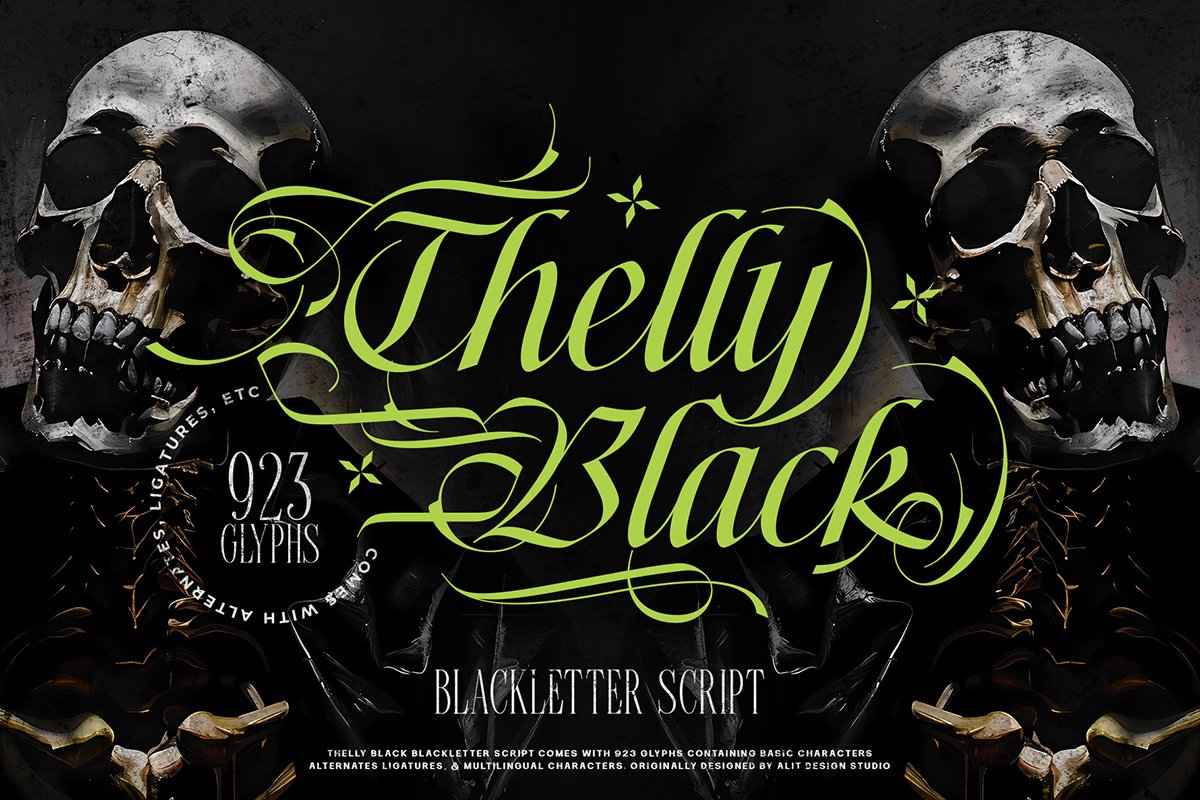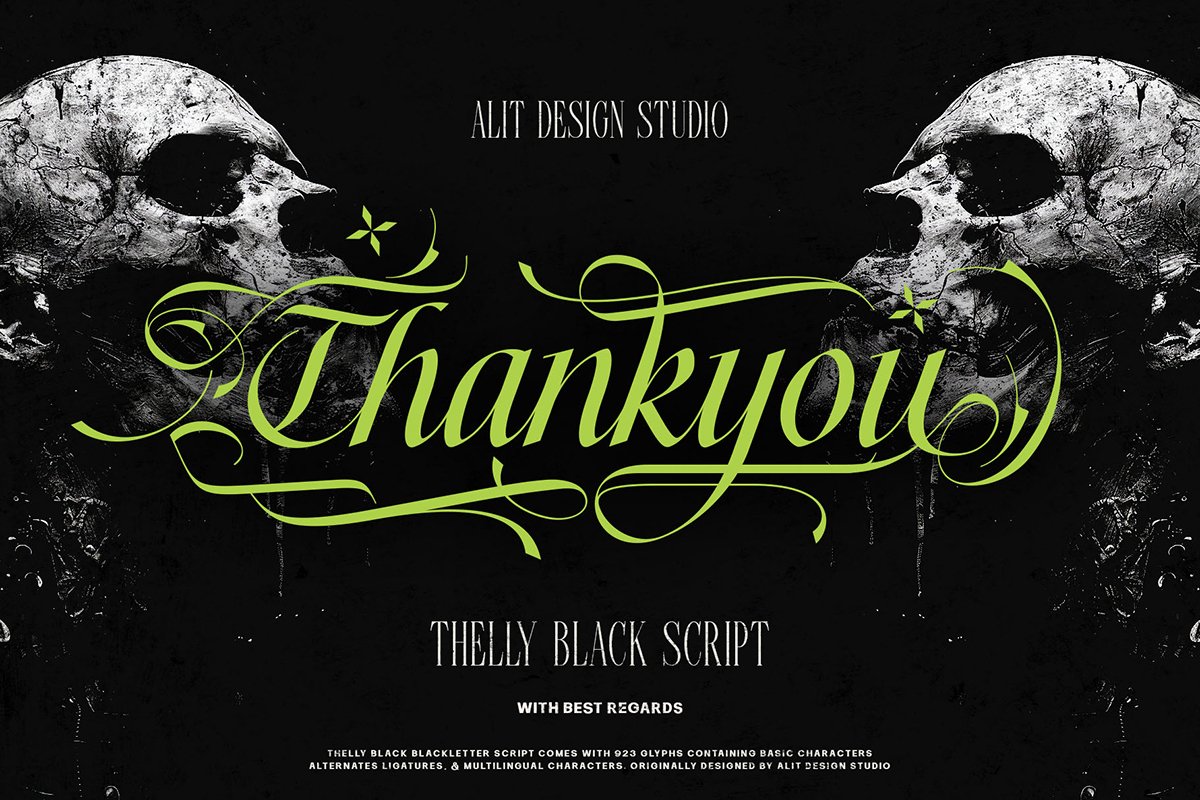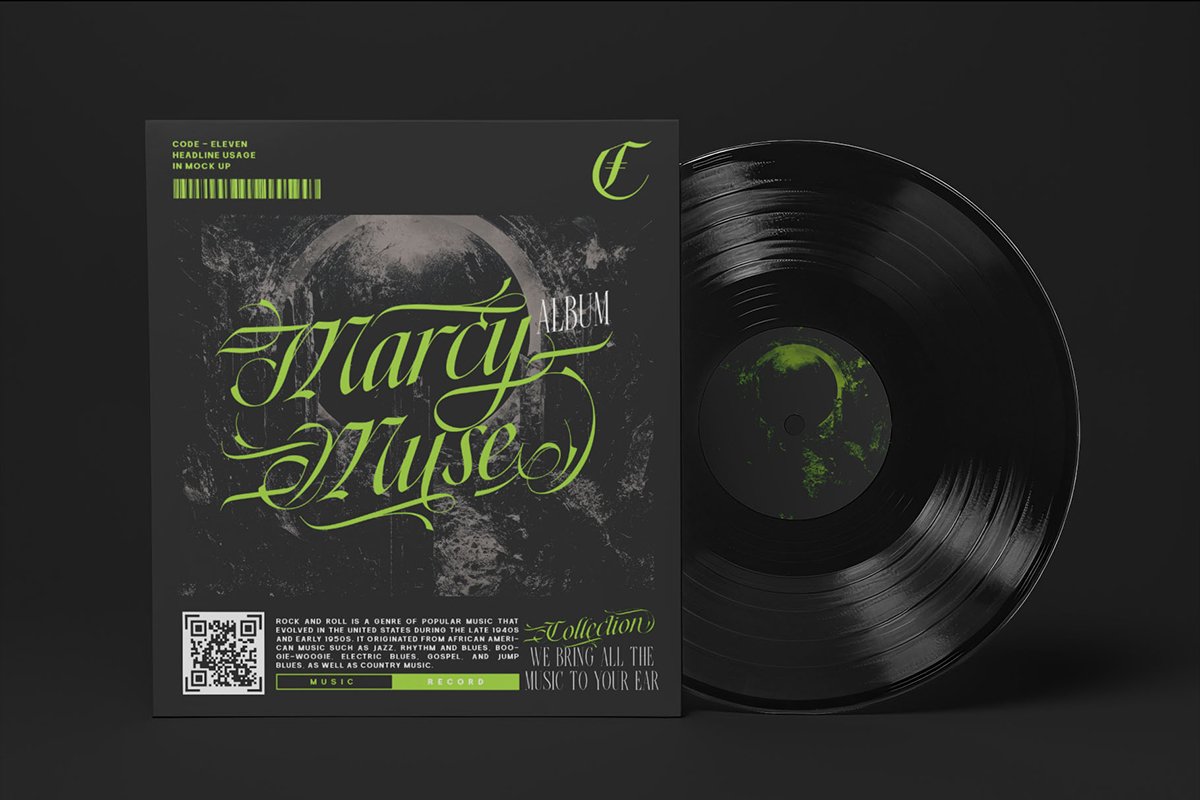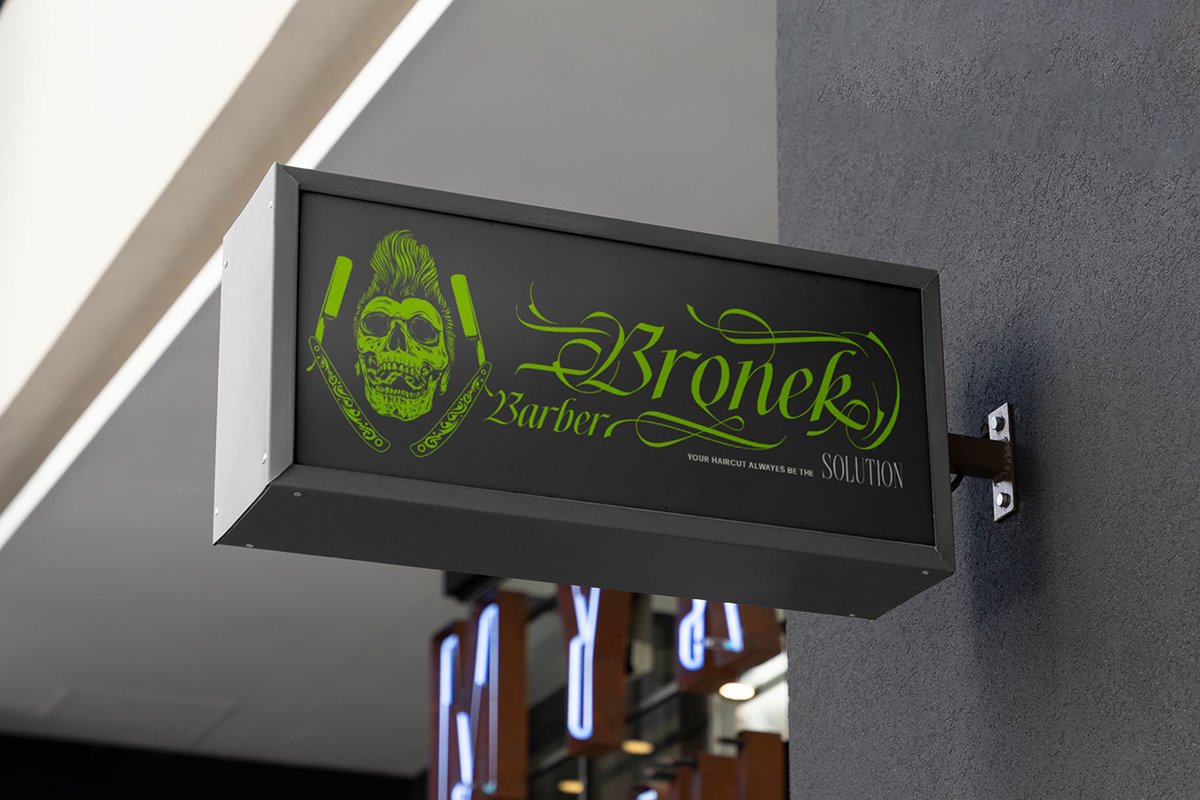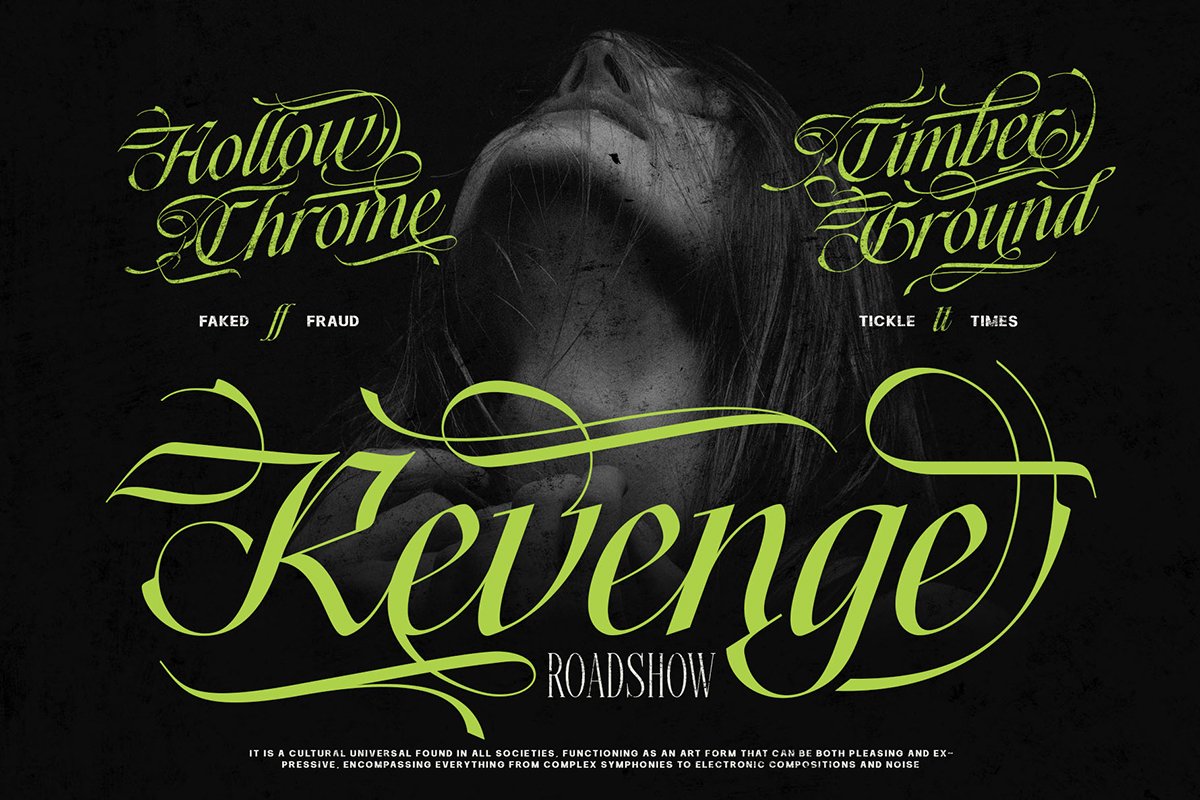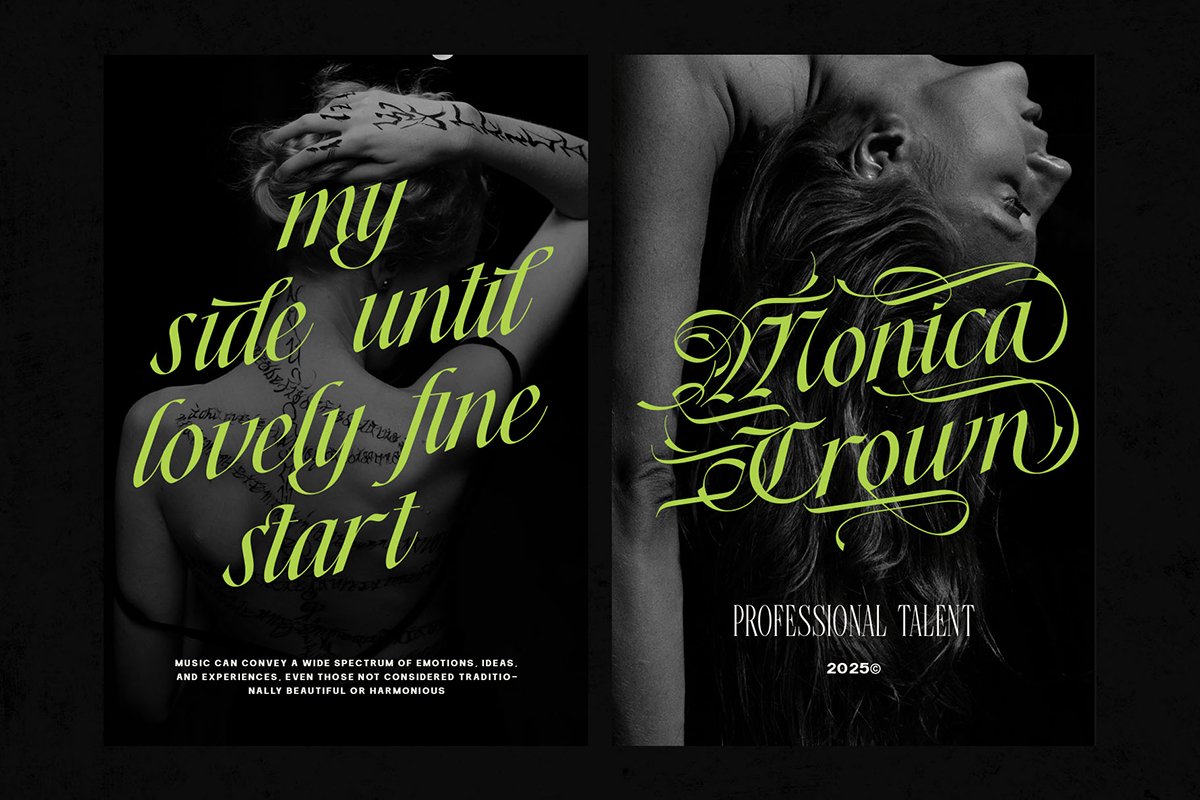
Thelly Black Font is here! Unleash the untamed spirit of rebellion and intricate elegance with Thelly Black, a commanding blackletter script typeface designed to make a devastating impact.
Step into the shadows where classic calligraphy collides with a raw, modern edge. Thelly Black is not merely a font; it is an arsenal of creative power. Each character is meticulously crafted, flowing with a fierce energy that is both beautiful and brutal. The sharp, decisive strokes and elaborate swashes give your text an unforgettable identity, perfect for projects that demand to be seen and felt.